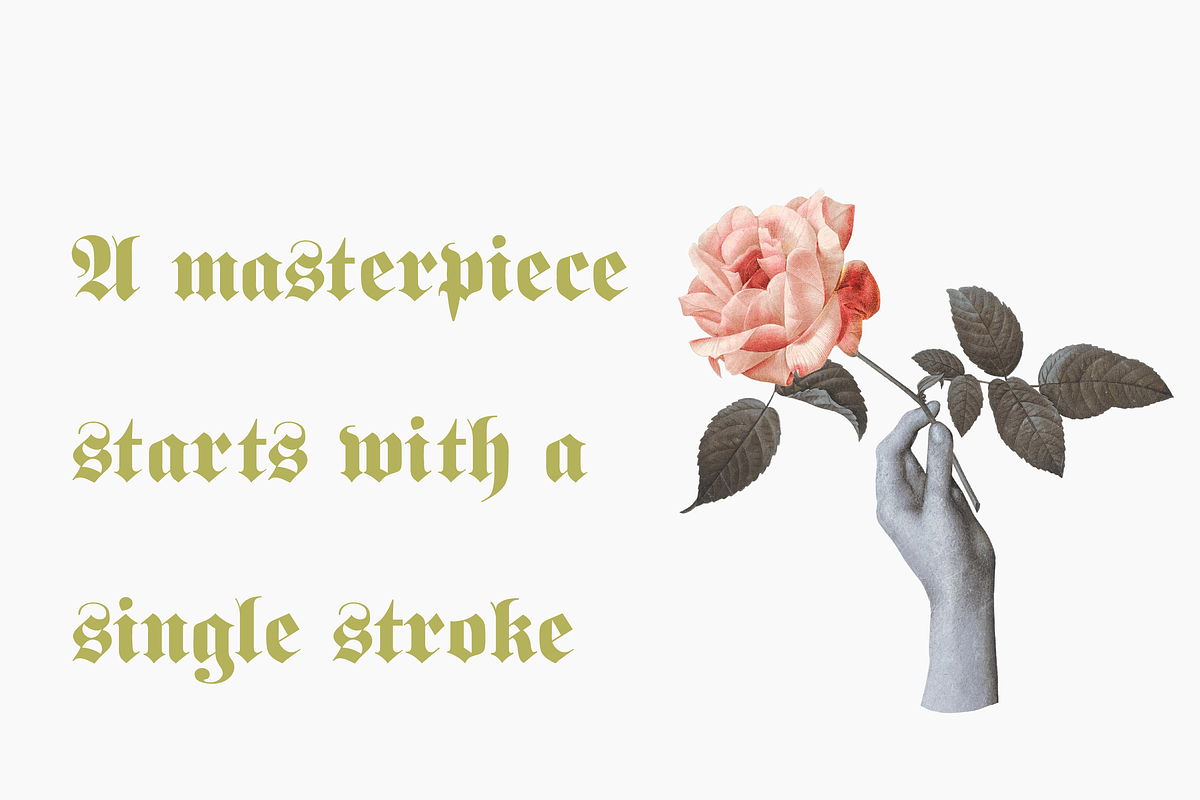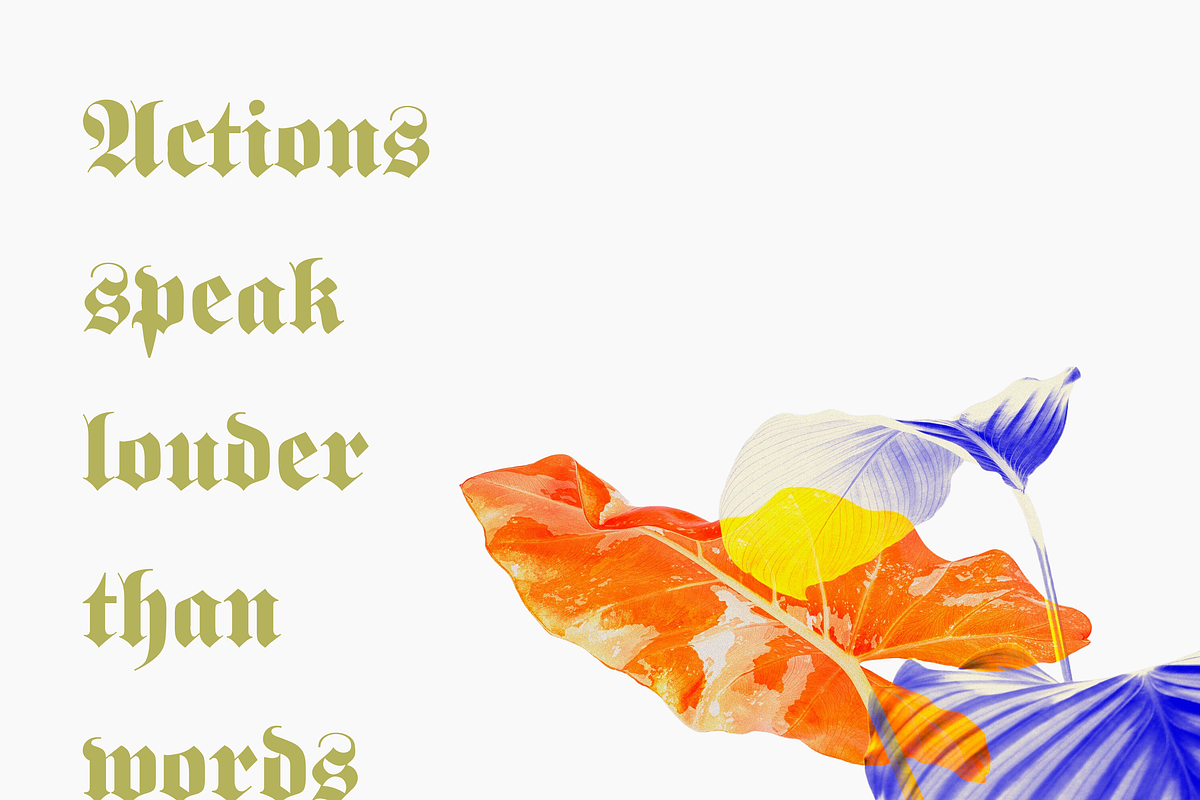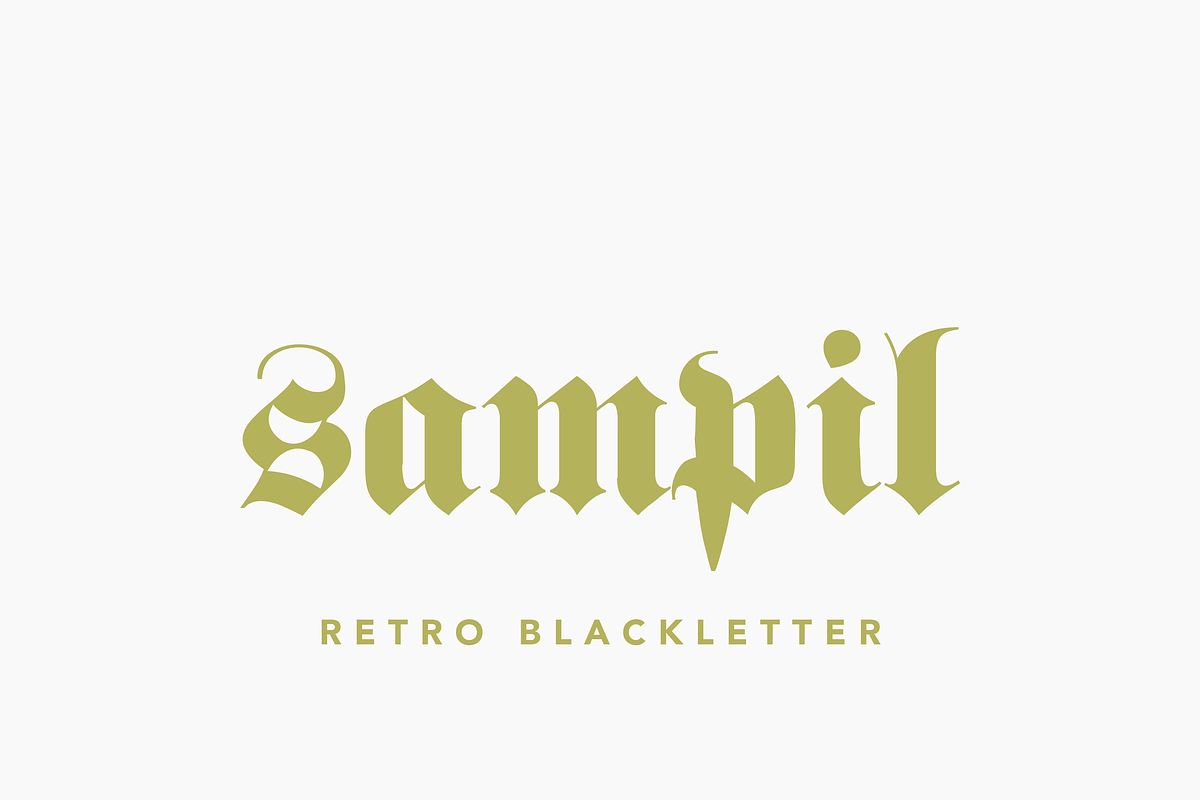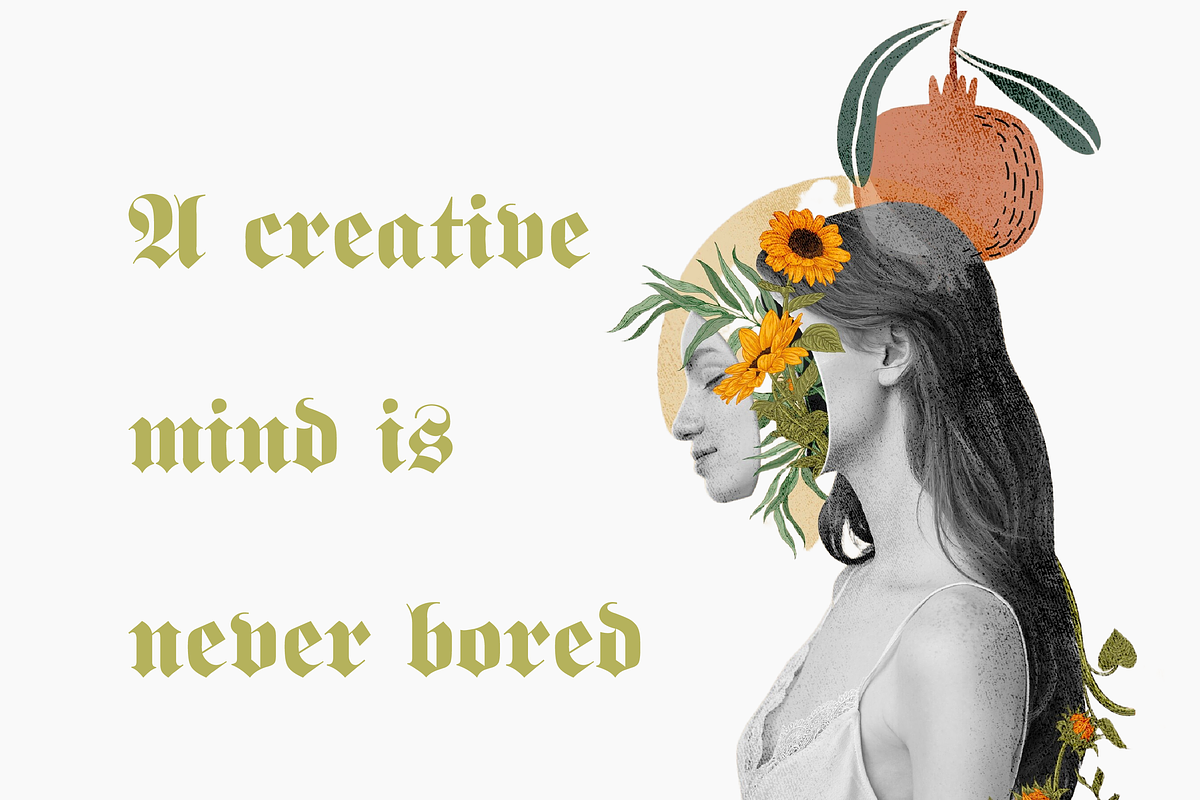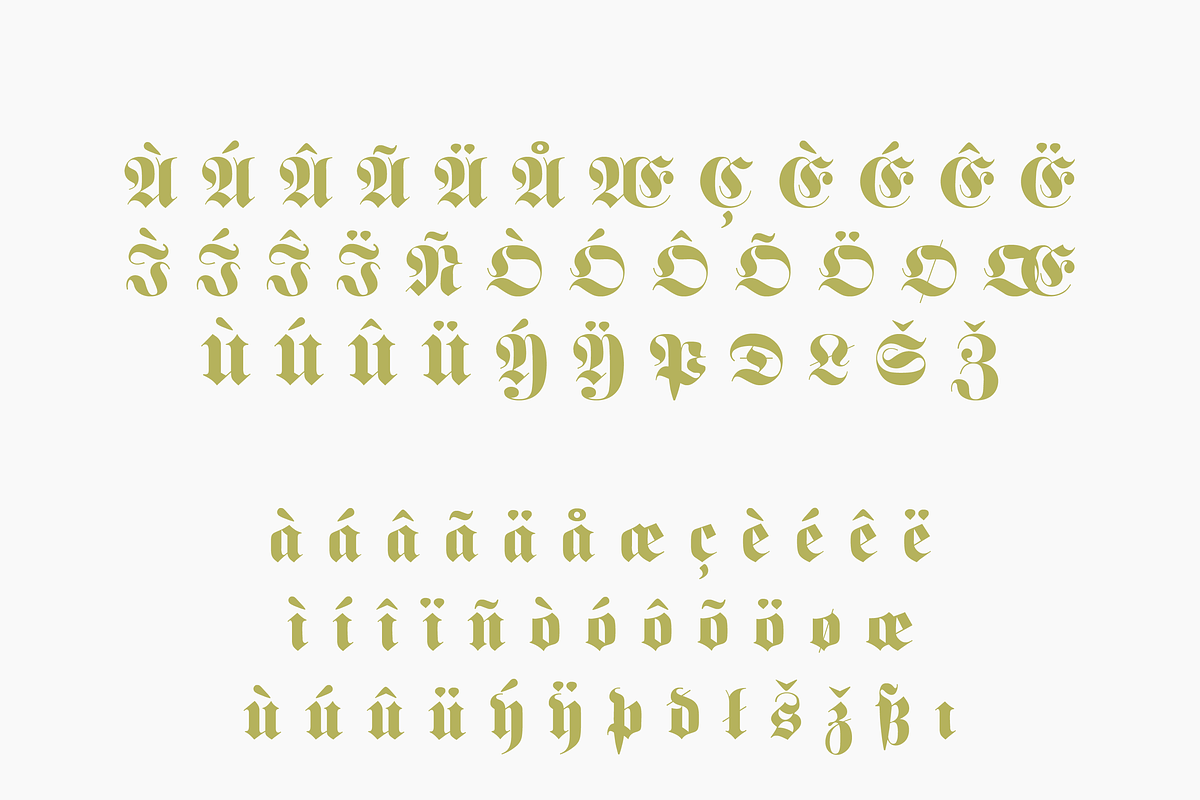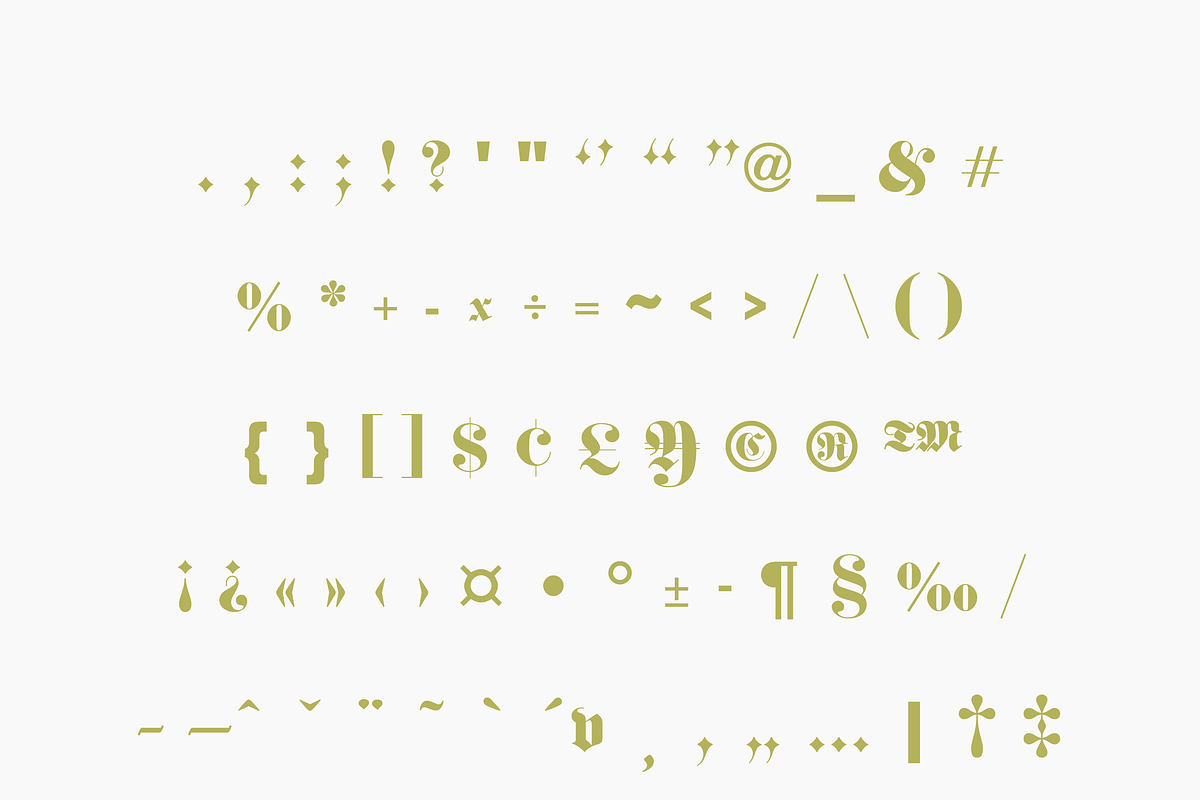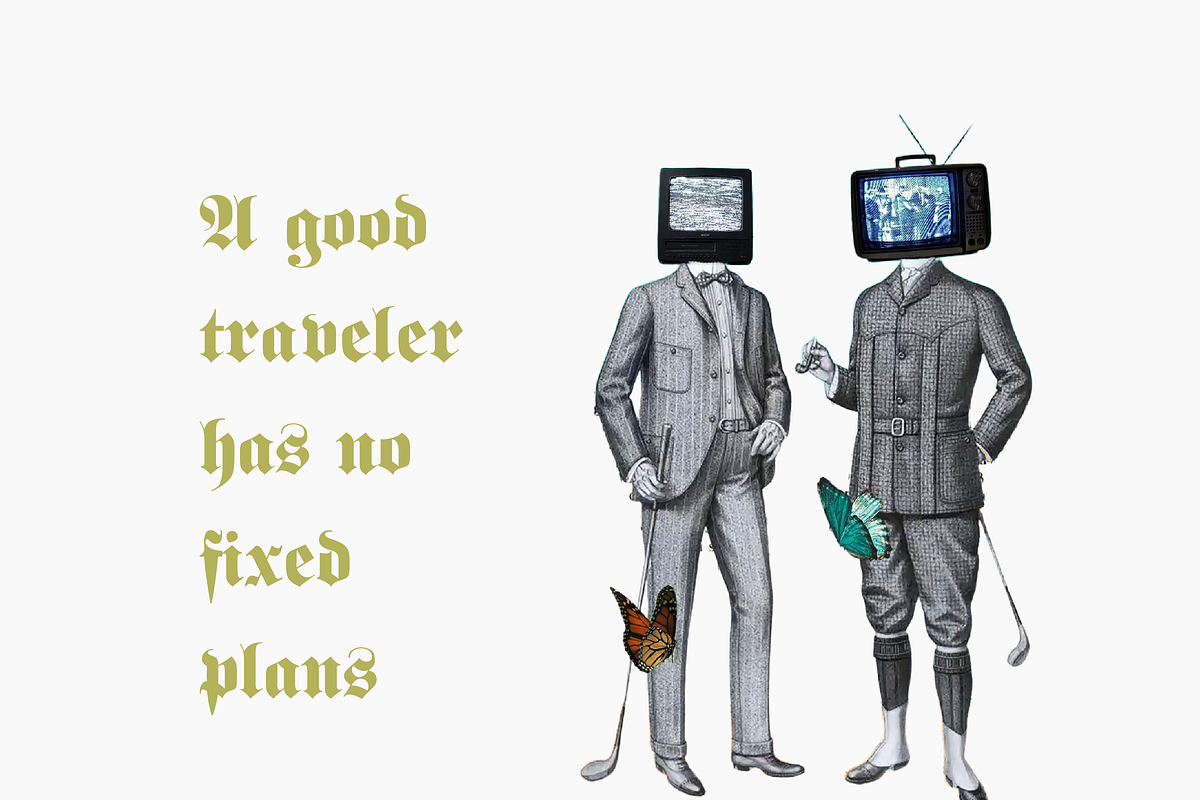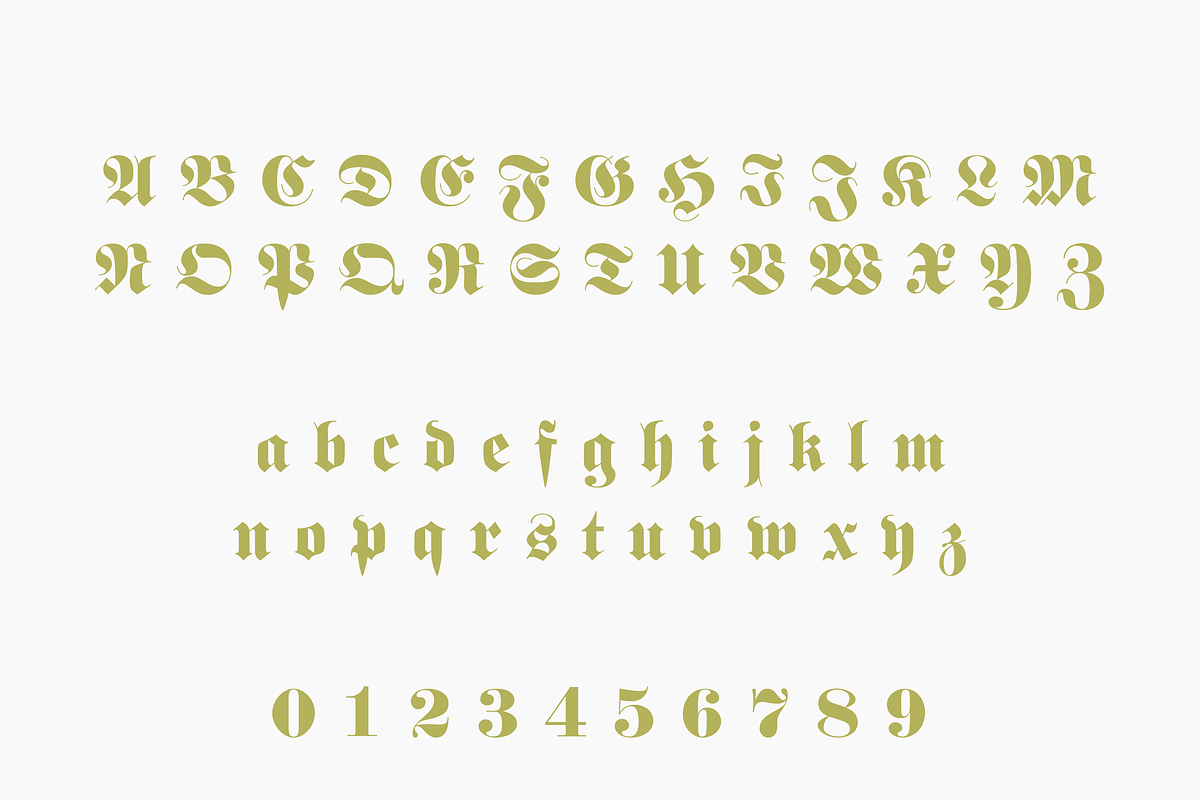
Sampil – A Nostalgic BlackLetter
Sampil is one of the most popular broken letter fonts today, known for evoking a rustic, nostalgic charm. It’s often seen in designs for restaurants serving hearty, homemade food or breweries showcasing their founder’s time-honored recipes. This typeface, designed in the 19th century, was originally created as an advertisement typeface, meant to catch the eye and leave a lasting impression.
The lowercase letters of Sampil exhibit a gothic character, with only the ornamental flourishes giving them their "broken" letter look. In contrast, the uppercase letters are more aligned with traditional broken letterforms, showcasing the boldness and impact that broken typefaces are known for.
Sampil is a true fusion of styles, blending gothic elements with ornamental flourishes—a combination typical of typefaces created at the turn of the 19th century. Whether you’re working on vintage branding, nostalgic packaging, or rustic-themed designs, Sampil brings a timeless, classic touch to your work.